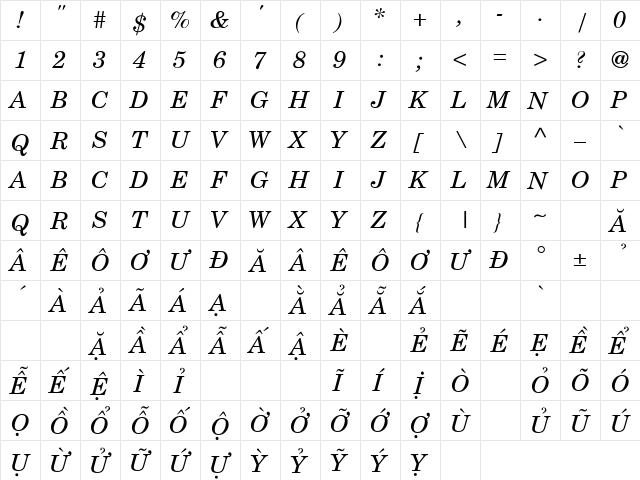
.VnCentury SchoolbookH Italic Font Preview
.VnCentury SchoolbookH Italic
.VnCentury SchoolbookH Italic Font Details
Design Context for .VnCentury SchoolbookH Typeface
.VnCentury SchoolbookH is a composed and adaptable typeface that performs quietly and consistently across a wide range of design contexts. The dynamic lean of this cut emphasises speed and emphasis in any layout.
Pro Tip: Use .VnCentury SchoolbookH for emphasis, pull quotes, and subheadings where its slanted energy can add rhythm to the layout.